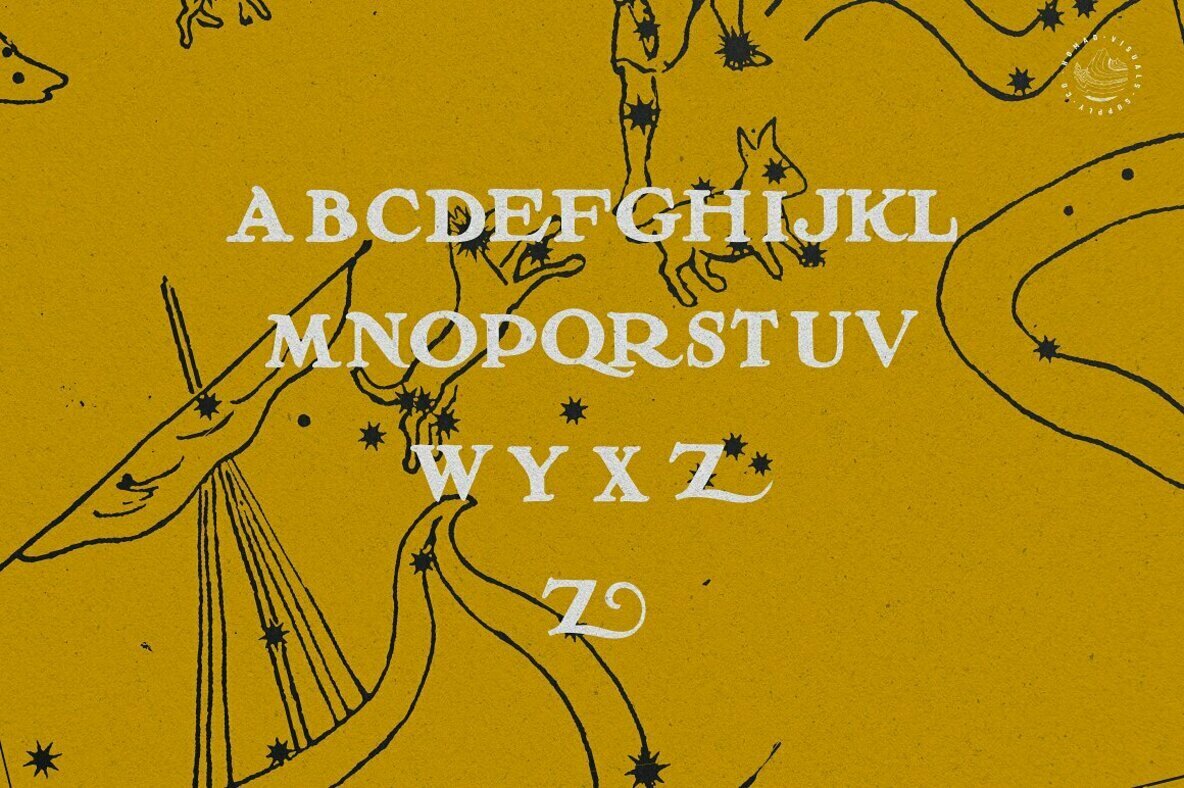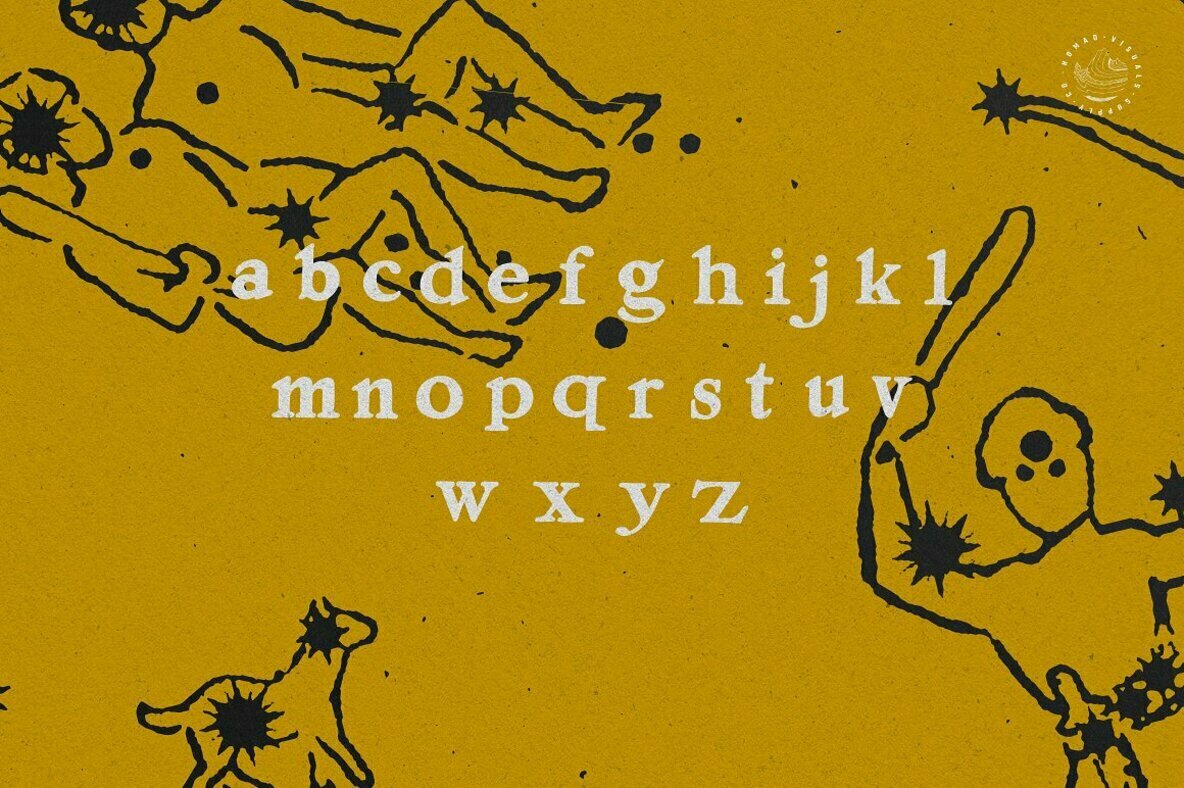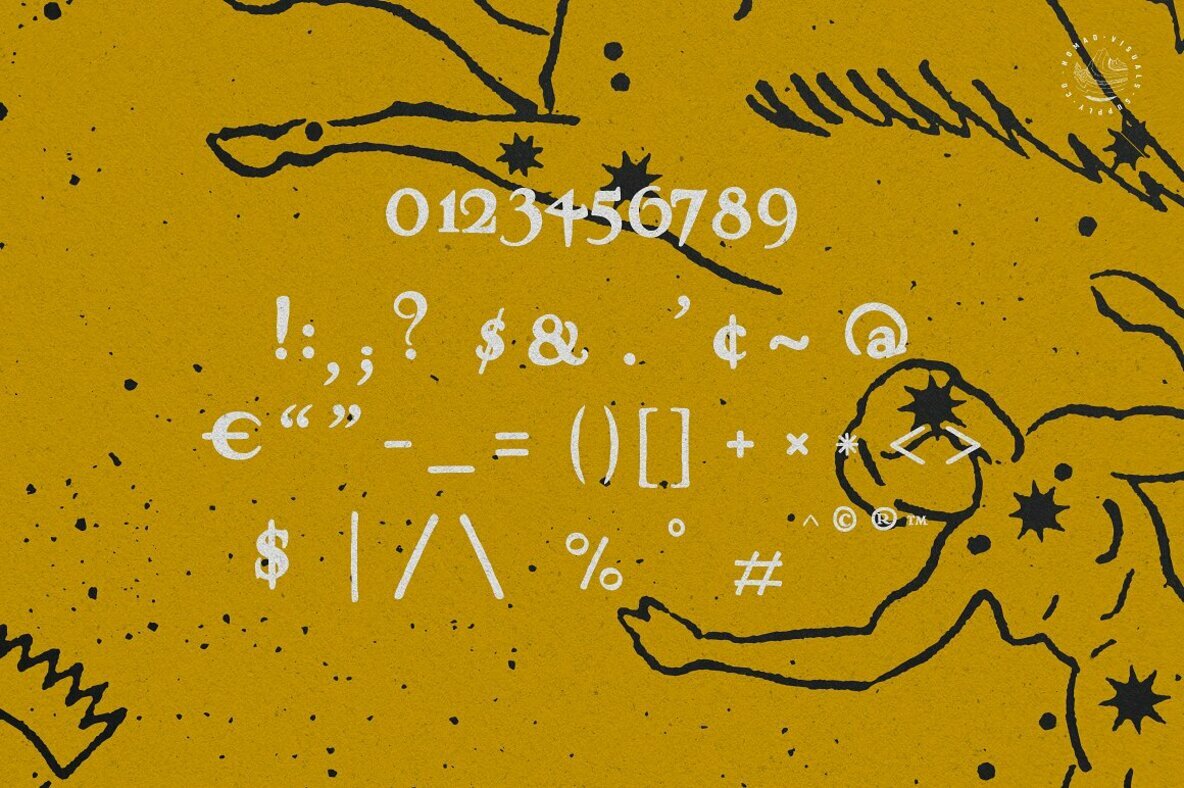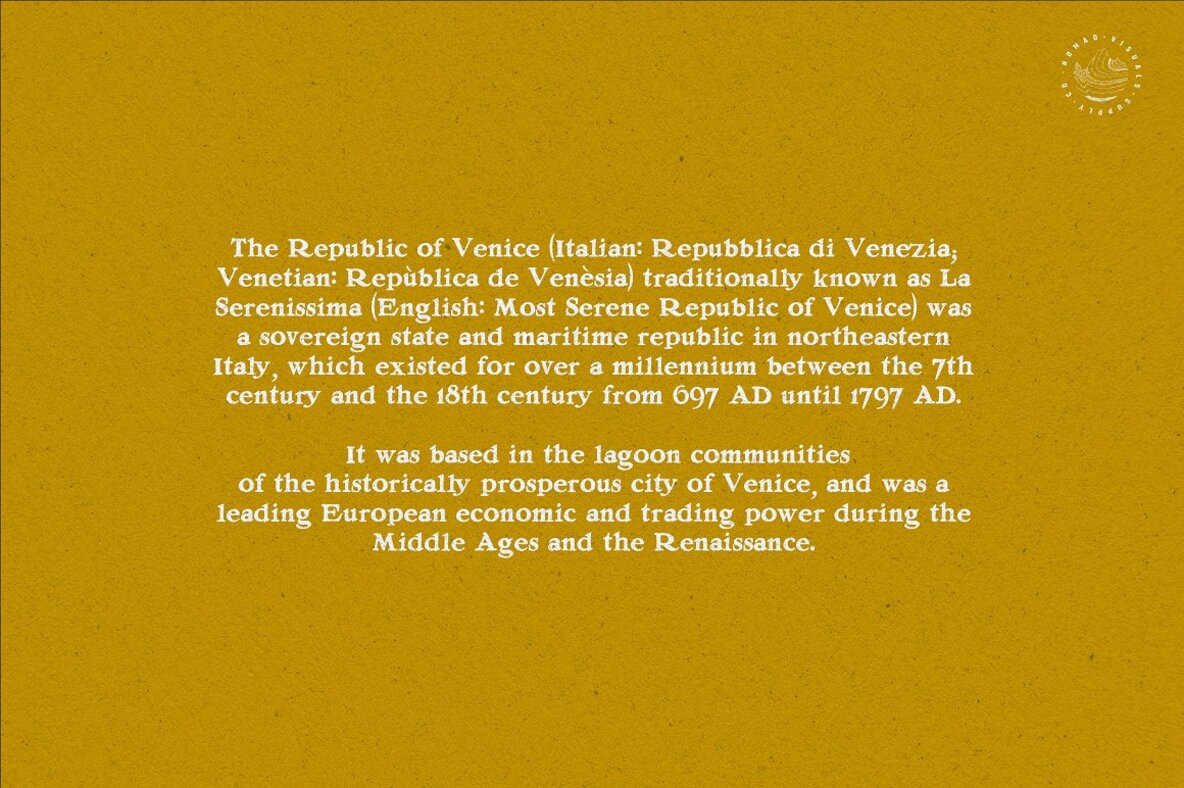
Venetia
An exquisite, rare & bold serif font, retrieved from long-forgotten archives, hidden in the secret heart of the Serenissima Republic of Venice. This font looks amazing for logo design, invitations and labels. It's perfect to give a unique vibe to your digital products and websites.
The font includes numbers, punctuation and special characters for international languages support.